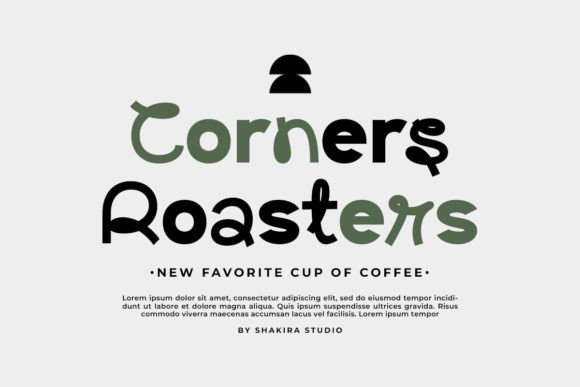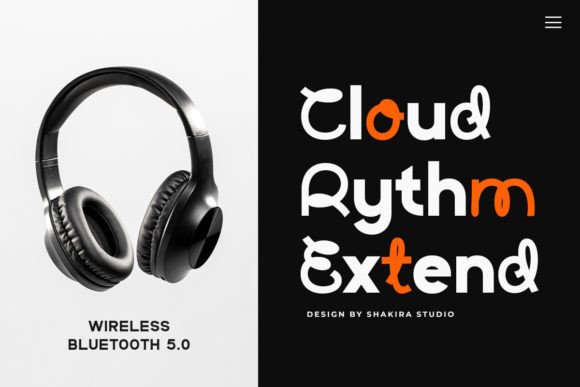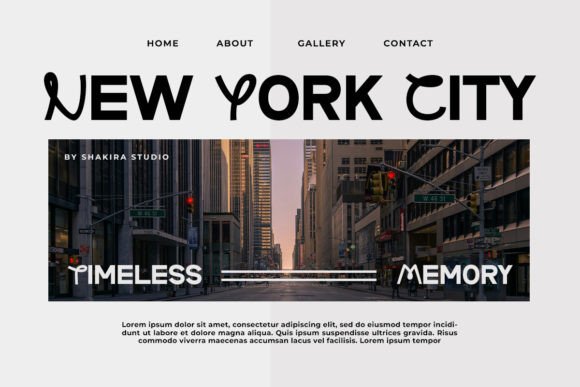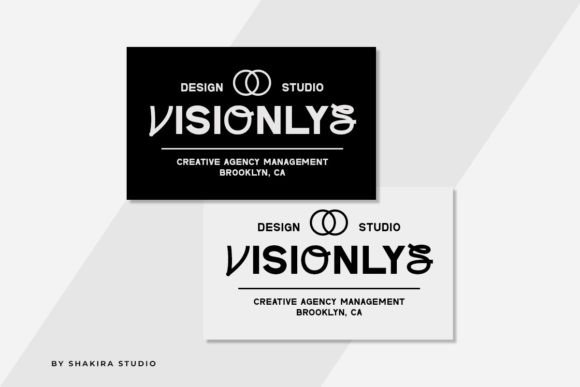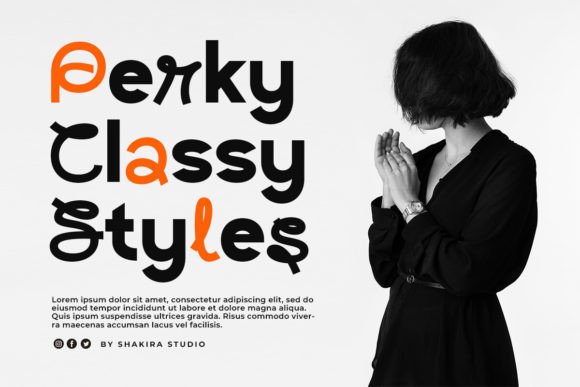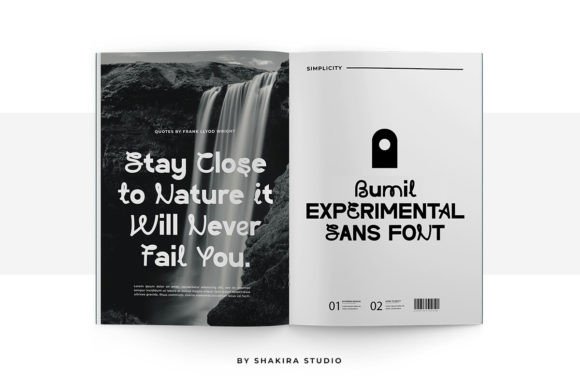
Introducing Bumil – The Experimental Sans Serif Font with Unique Character!
In the ever-evolving world of typography, a new player has emerged to shake things up. Say hello to Bumil, an experimental sans serif font that’s pushing the boundaries of conventional design. With its bold and avant-garde approach, Bumil is perfect for designers and crafters looking to add a distinctive flair to their projects.
The Essence of Experimental Typography
Bumil embodies the spirit of experimental typography, a trend that’s gaining momentum in the design world. By defying traditional typography rules, Bumil creates a fresh and exciting visual experience. Its unique characters and stylish alternates make it an ideal choice for cutting-edge branding, innovative posters, and creative editorial designs.
What Sets Bumil Apart?
So, what makes Bumil stand out from the crowd? Here are a few key features that set it apart:
- Unique Characters: Bumil boasts a range of distinctive characters that add a touch of personality to your designs.
- Stylish Alternates: With multiple alternate styles to choose from, you can experiment with different looks and feels to find the perfect fit for your project.
- Sans Serif Design: Bumil’s clean and minimalist sans serif design makes it perfect for modern and edgy designs.
- Experimental Spirit: Bumil’s willingness to push the boundaries of traditional typography makes it a great choice for designers looking to try something new.
Perfect for Bold and Avant-Garde Designs
Bumil’s experimental nature makes it an ideal choice for designers who want to create bold and eye-catching designs. Whether you’re working on:
- Cutting-edge branding: Use Bumil to create a memorable and impactful brand identity.
- Innovative posters: Bumil’s unique characters and stylish alternates make it perfect for creating striking posters that grab attention.
- Creative editorial designs: Add a touch of personality to your editorial designs with Bumil’s experimental typography.
Join the Trend towards Bold and Avant-Garde Typography
The world of typography is evolving, and Bumil is at the forefront of this movement. By embracing experimental typography, designers can create fresh and exciting visual experiences that capture the attention of their audience. With Bumil, you can:
- Stay ahead of the curve: Be one of the first to experiment with Bumil’s unique and bold typography.
- Stand out from the crowd: Use Bumil to create designs that are truly one-of-a-kind.
- Push the boundaries of design: Join the trend towards bold and avant-garde typography with Bumil.
Bumil is more than just a font – it’s a movement. By embracing experimental typography, designers can create bold and eye-catching designs that capture the attention of their audience. With its unique characters, stylish alternates, and sans serif design, Bumil is the perfect choice for designers looking to push the boundaries of conventional design. Join the trend towards bold and avant-garde typography with Bumil and take your designs to the next level.